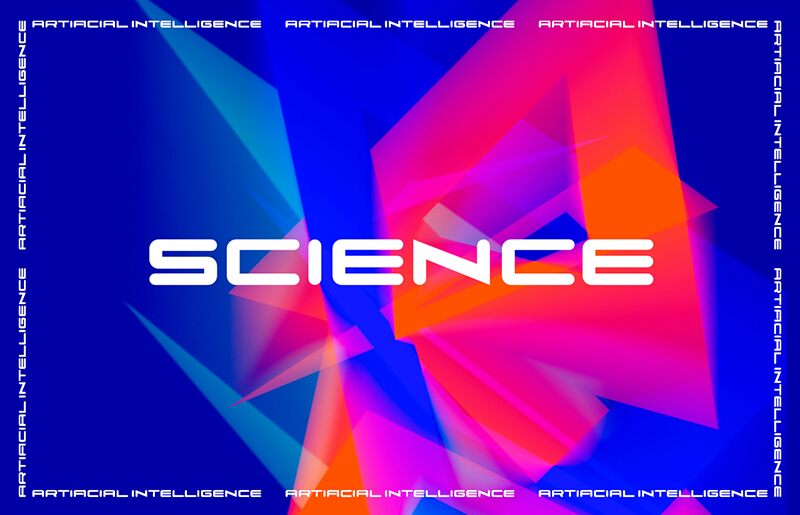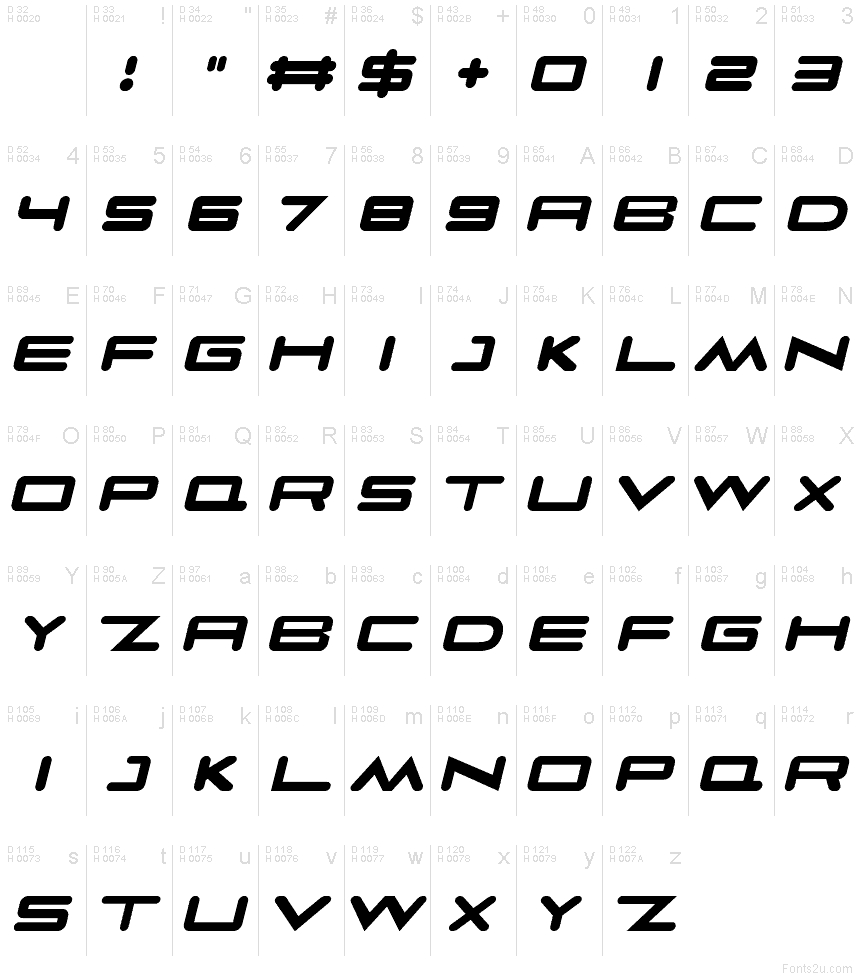
Faqro Extended Round Italic
Faqro Extended Round Italic font is a futuristic, expanded display free font by ffeeaarr. The font was created to be noticed and recognized after the first encounter with its unusual forms, smooth curves, and bold presence. Its connection to technology is more than obvious without neglecting its exquisite aesthetic that keeps the viewers’ attention for longer.
Use Faqro Extended Round Italic in mobile games, posters, flyer headlines, video editing projects like intros and outros. It can also make an exceptional addition to cover designs for retro books about future predictions or a redesign of well-known novel covers about the futuristic world.